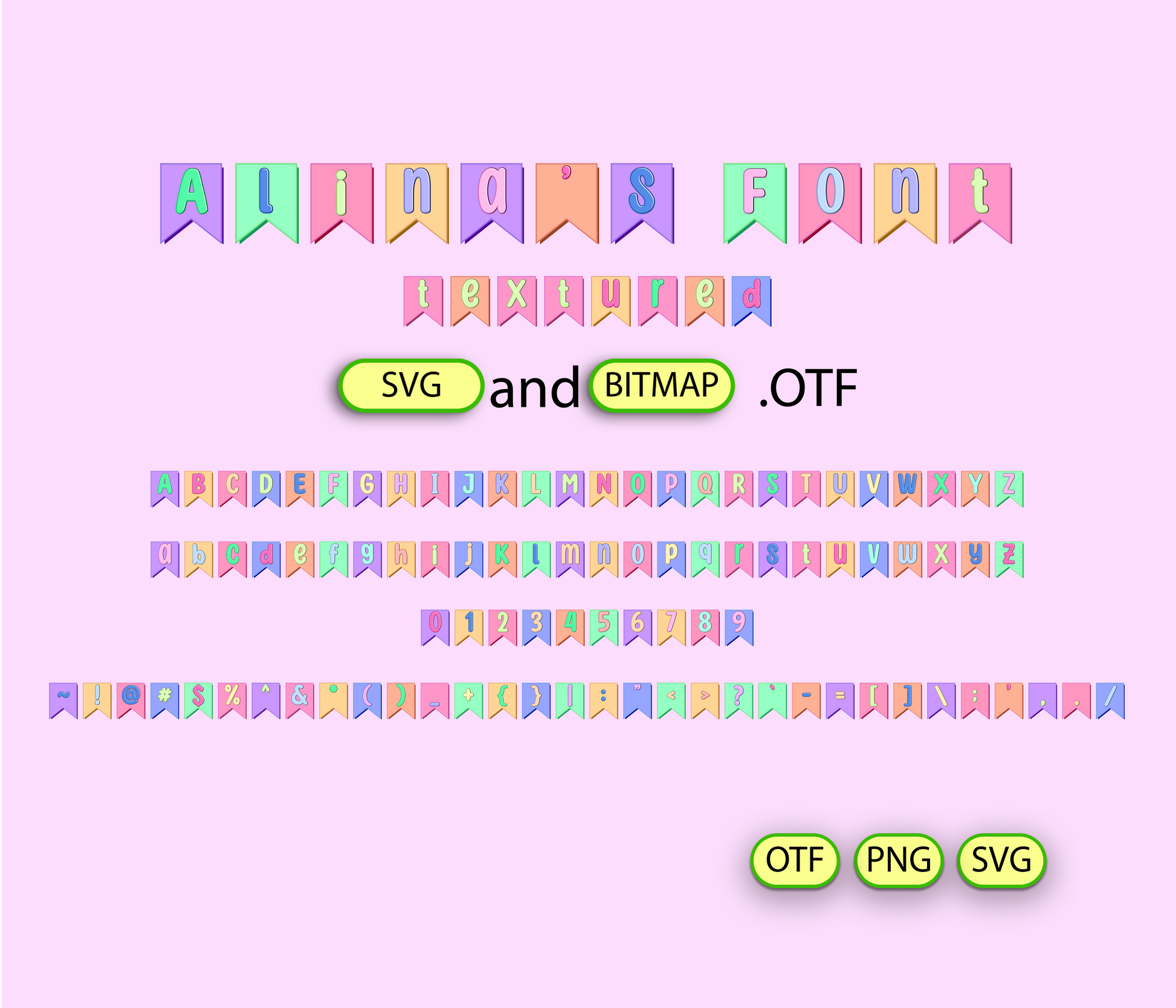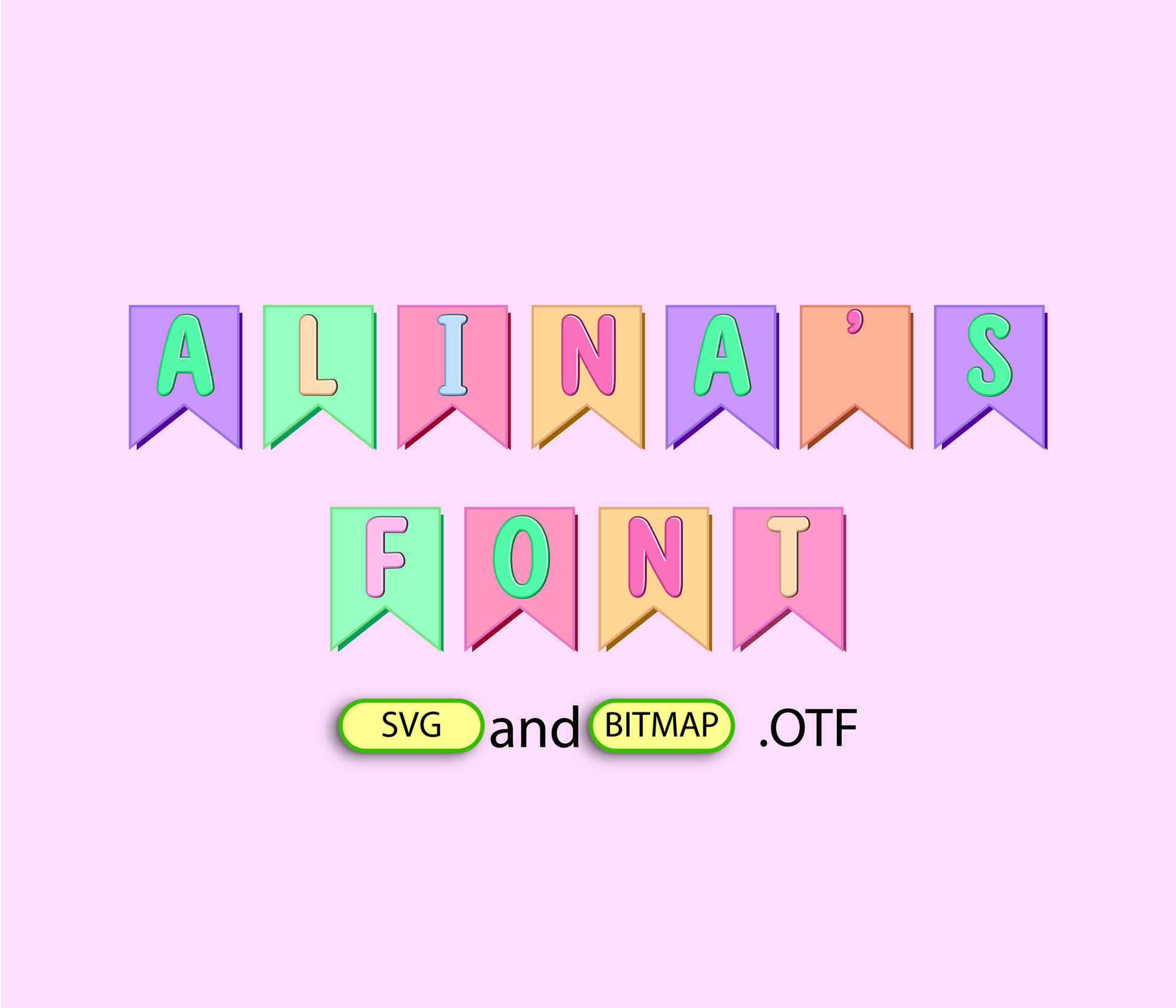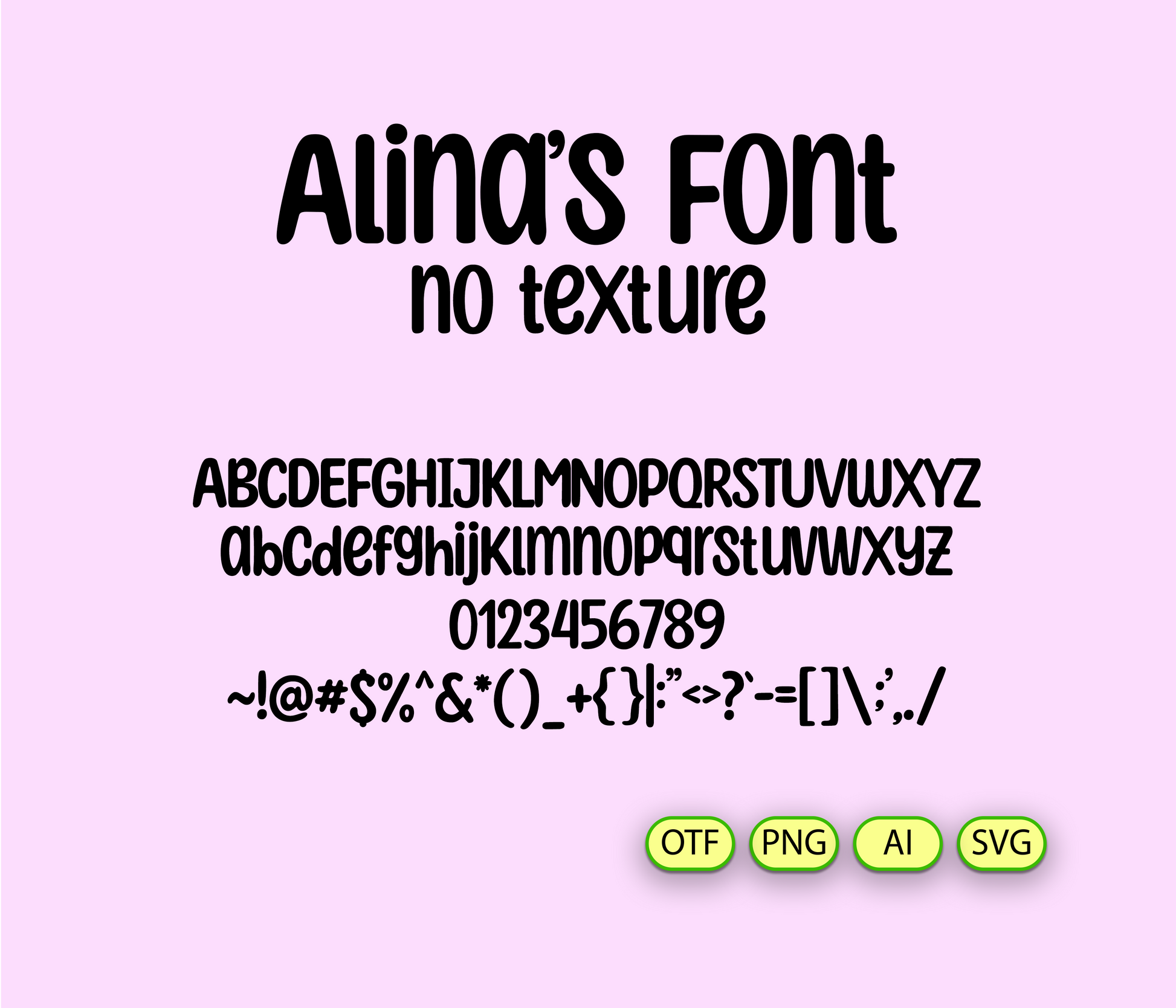
Birthday Celebration Banner Font Textured
Birthday Font: Celebrate Every Moment with Typographic Joy
Immerse yourself in the festive spirit of celebration with the Birthday font, a typeface designed to capture the essence of joy, fun, and excitement that comes with each special day. This font is all about creating an atmosphere of happiness and celebration, perfect for personalizing everything from birthday cards to party banners. With its playful curves and vibrant style, the Birthday font is your go-to choice for adding a touch of whimsy and cheer to any birthday-related design.
The Birthday font offers endless possibilities for creative and celebratory projects, ensuring that every birthday feels extra special:
The Birthday font package is crafted to ensure maximum usability and enjoyment. It includes both a textured variant, which adds a playful, handcrafted look, and a non-textured version that offers clean, clear lines for more formal or versatile applications. This non-textured version is especially useful as it ensures compatibility with all software, including popular platforms like Canva, facilitating seamless integration into both digital and print projects. The Birthday font is more than just a set of characters; it's a celebration in typographic form. With its vibrant style and versatile design, this font is ideal for anyone looking to add a touch of joy to their birthday celebrations. Whether you're designing for personal use, professional projects, or anything in between, the Birthday font ensures that every word sparkles with the excitement of a party, making your designs as memorable as the celebrations they represent.
Birthday Banner Font